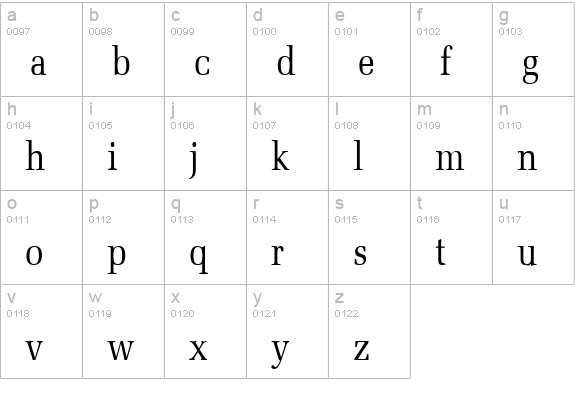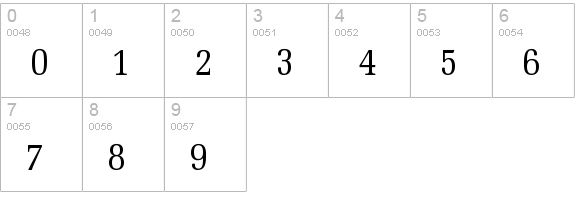
Bid Roman-Condensed Normal is the standard, neutral, condensed-width variant in the Bid typeface family \xE2\x80\x94 well suited to general body text, paragraphs, and standard typographic work.
Bid Roman-Condensed Normal font is a sleek and modern typeface that is perfect for adding a touch of sophistication to any design project. Its condensed form allows for more characters to fit on a line, making it ideal for headlines, titles, and other display purposes. The clean lines and sharp edges of this font convey a sense of elegance and professionalism. And the best part is, Bid Roman-Condensed Normal font is available for free download at FontsMarket.com. This means you can easily access and use this versatile font in your projects without any cost. Whether you're designing a website, creating a poster, or working on a branding project, Bid Roman-Condensed Normal font is a great choice that will elevate your design to the next level.